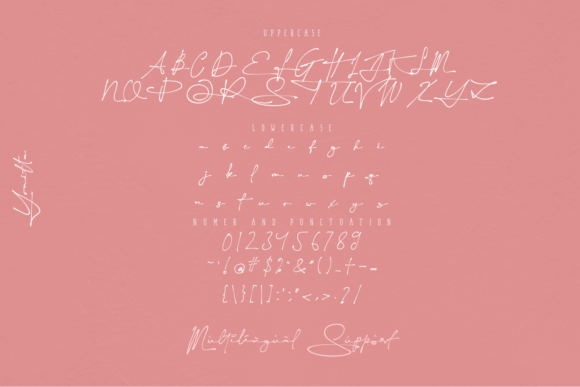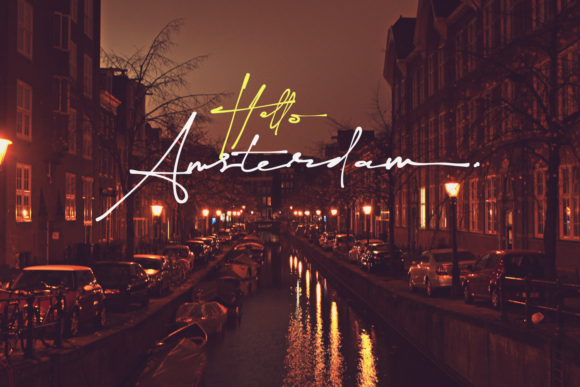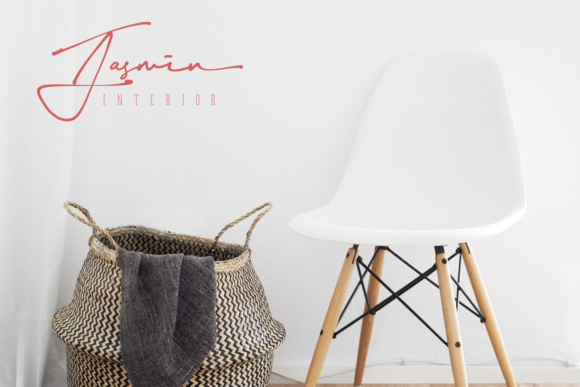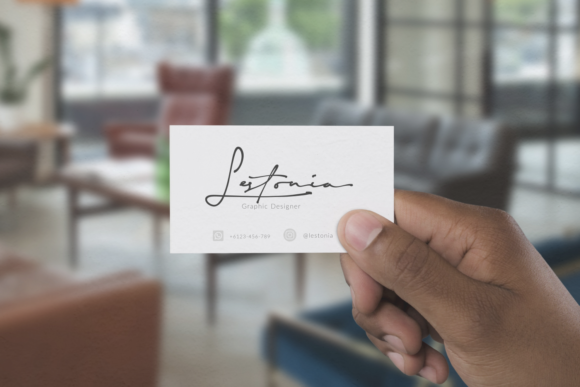
About Yonitta Font
Yonitta is an elegant and flowing handwritten font. It is PUA encoded which means you can access all of the glyphs and swashes with ease! It features a varying baseline, smooth lines, gorgeous glyphs and stunning alternates. It maintains its classy calligraphic influences while feeling contemporary and fresh. Fall in love with this font and bring your projects to the highest levels!